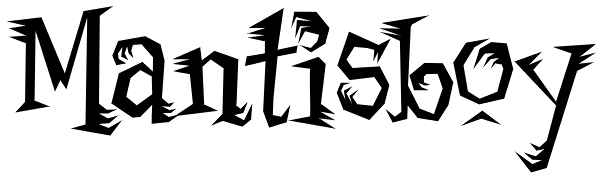
Mantisboy
Screeech! Ack! Ack! Mantisboy was created by Chank Diesel in 1995 as a custom font for the Cartoon Network's Space Ghost Coast to Coast web site. This font represents the printed voice of the talk show's bandleader, an evil alien mantis.